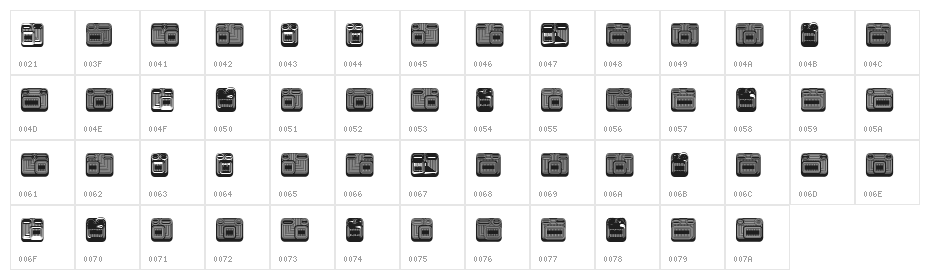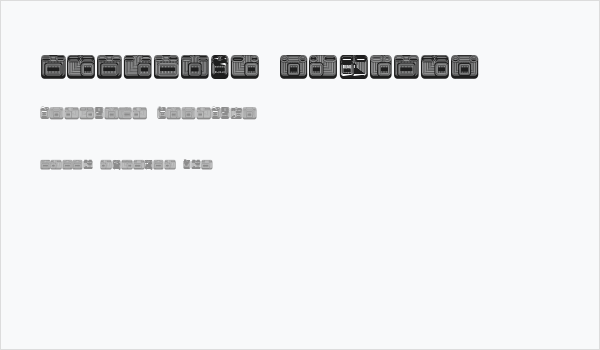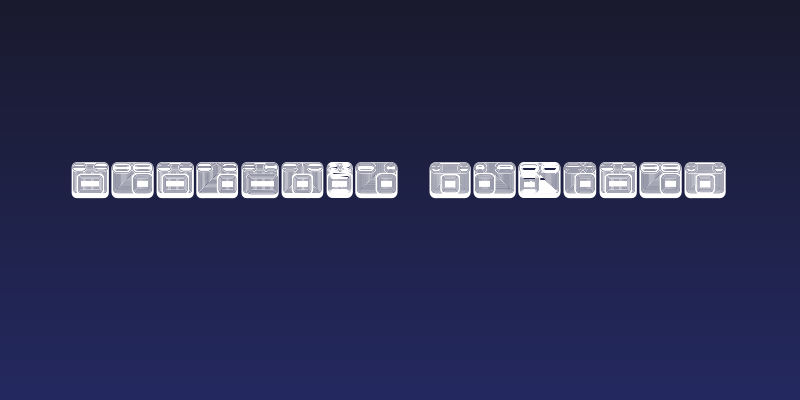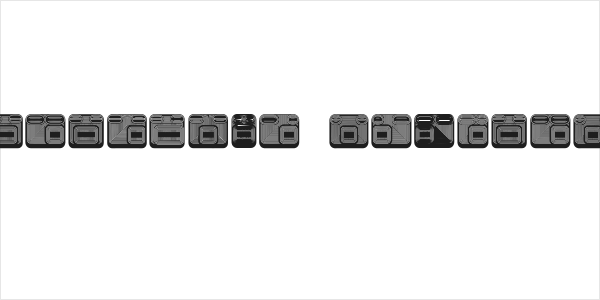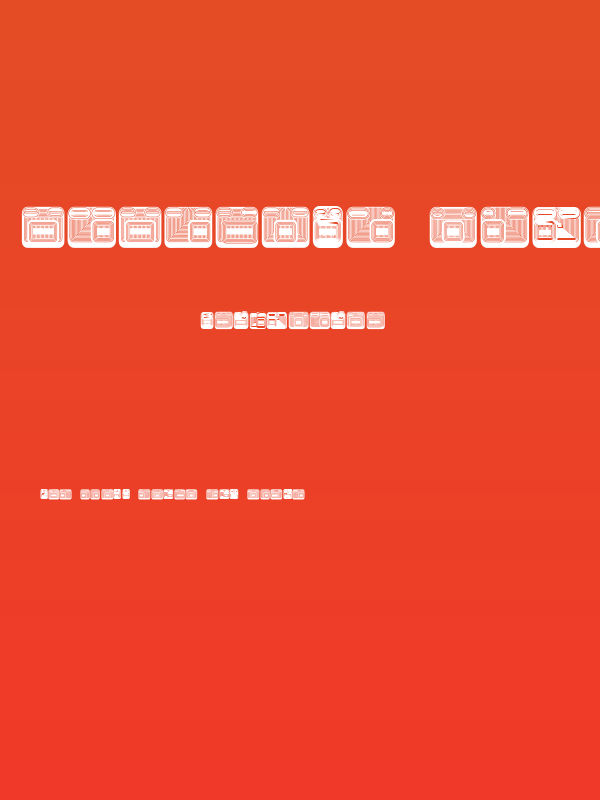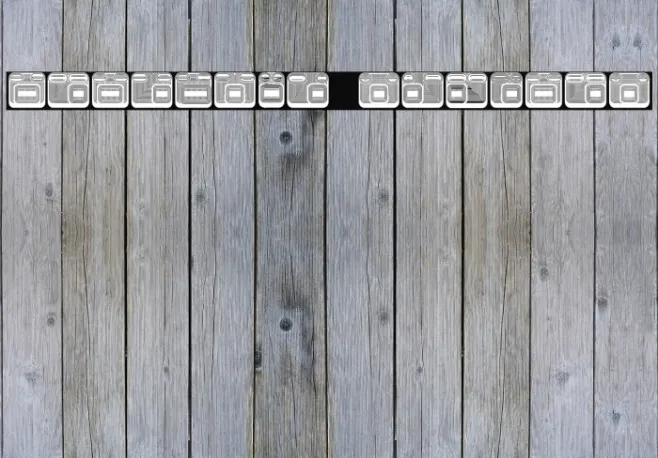
Halfwits Regular Font
Halfwits Regular Description
This font features a highly decorative and intricate design, characterized by bold, geometric patterns within each character. The letters are enclosed in square-like shapes, giving them a unique, almost three-dimensional appearance. The design incorporates a maze-like pattern with varying line thicknesses, creating a striking visual effect. This font is not suited for body text due to its complex design but stands out for its artistic and ornamental qualities. It is ideal for projects that require a bold statement or a unique visual identity.
| Use Case | Logos, Posters, Artistic projects |
| Proposed Projects | Ideal for artistic projects, posters, album covers, or any design requiring a bold, unique visual identity. |